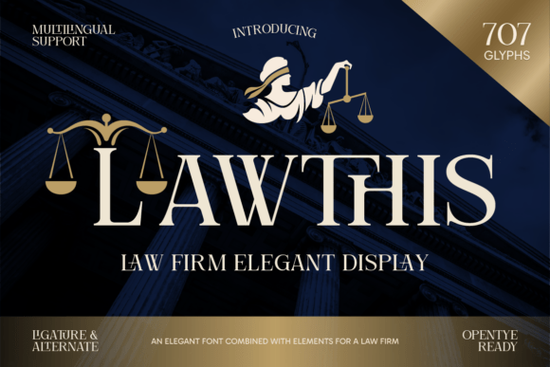
If you're building a brand that needs to convey trust, authority, and timeless professionalism especially in legal, corporate, or luxury spaces you’ll want typography that matches that tone. That’s where Lawthis Font comes in. Designed with the gravitas of courtrooms and classic law firm identities in mind, Lawthis is a refined serif display font that brings precision and elegance to every letterform.
Unlike generic fonts that try to do everything, Lawthis focuses on what matters most for serious branding: clarity, structure, and sophistication. Its sharp serifs and balanced proportions give it a commanding presence without feeling stiff or outdated. Whether you’re designing a law firm logo, crafting premium business stationery, or laying out an editorial spread for a high-end publication, this font helps your message land with confidence.
What makes Lawthis work so well for professional branding?
Lawthis isn’t just another serif it’s built with real-world design needs in mind. The font includes a full set of uppercase and lowercase letters, numbers, punctuation, and multilingual support, making it practical for international clients or diverse audiences. But what really sets it apart are the thoughtful extras:
- Stylistic alternates let you swap in refined letterforms for a more custom look.
- Ligatures automatically combine certain letter pairs (like “fi” or “ct”) into seamless, elegant glyphs.
These features mean you don’t need advanced typographic skills to create polished, distinctive designs. The font does much of the heavy lifting for you just type, and Lawthis delivers professional results.
- Law firms and legal consultants creating logos, letterheads, or client presentations.
- Corporate identity designers working on rebrands for finance, consulting, or real estate.
- Print-on-demand sellers offering premium notebooks, notepads, or desk accessories aimed at professionals.
- Magazine and editorial designers crafting layouts for luxury, business, or legal publications.
- Crafters and small business owners who want their packaging or business cards to feel elevated and trustworthy.
If your project benefits from a sense of heritage, integrity, or understated luxury, Lawthis fits naturally without trying too hard.
How does it compare to other serif fonts?
Many classic serifs (like Times New Roman or Garamond) were designed for body text in books or newspapers. Lawthis, by contrast, is a display serif meaning it’s optimized for headlines, logos, and short-form impactful typography. It has more dramatic strokes, sharper details, and intentional spacing that draws attention while maintaining readability at larger sizes.
You’ll also find that Lawthis avoids the overly ornate flourishes that can date a design. Instead, it leans into clean geometry and restrained elegance making it versatile enough for both traditional and modern aesthetics.
- ✅ Use it primarily for headlines, logos, or short text not long paragraphs.
- ✅ Pair it with a clean, neutral sans-serif (like Helvetica Neue or Inter) for contrast in body copy.
When your brand needs to speak with authority but without shouting Lawthis offers the quiet confidence that only carefully crafted typography can provide.